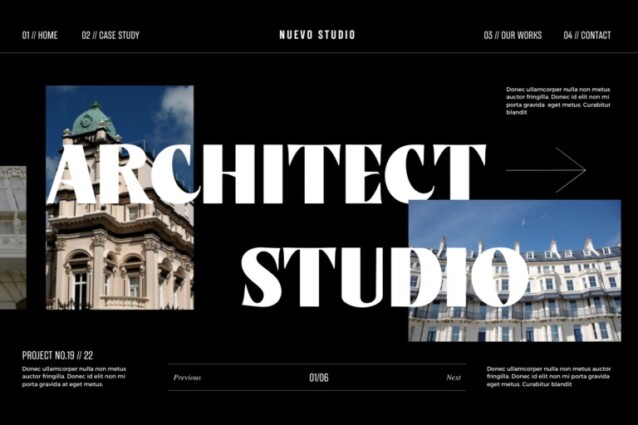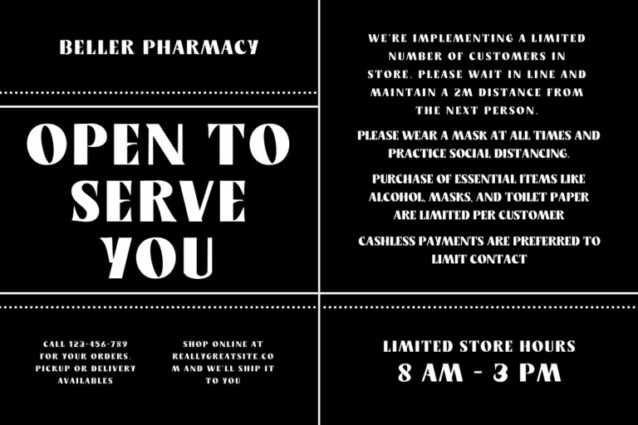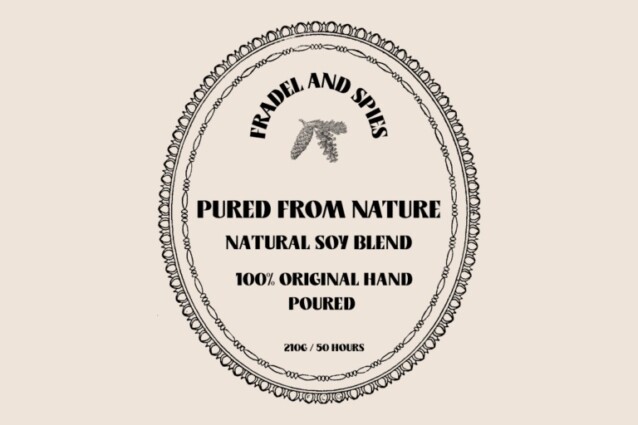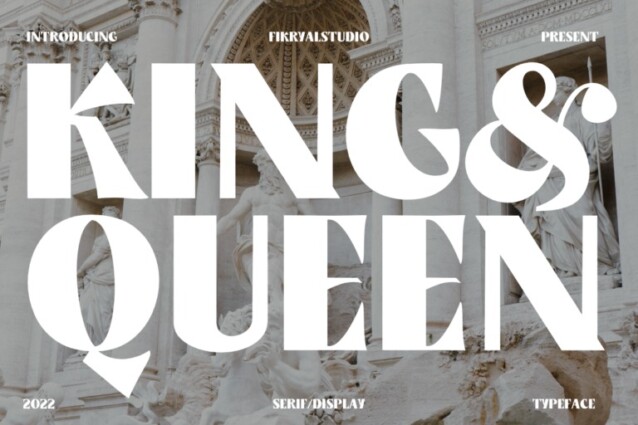
King & Queen Font
King & Queen Font is new font unic style, elegant and modern feel character set. This font is very suitable to be applied in various aspects of design, and your branding. Also, it’s perfect for logos, branding, title, social media posts, advertisements, product packaging, product designs, label, photography, watermark, special event, magazine, web designs, etc.